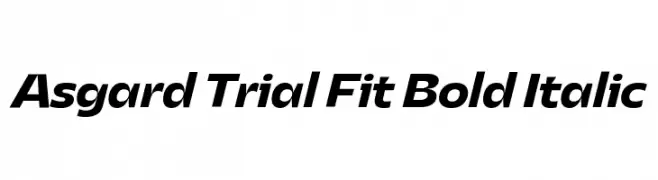
• Asgard Trial Fat
A bold, modern font with thick strokes and strong geometric shapes.
• Asgard Trial Fat Backslant
A bold, backslanted font with a dynamic and energetic style.
• Asgard Trial Fat Italic
A bold, italic font with a modern, dynamic style and high contrast.
• Asgard Trial Fit Bold
A bold, modern typeface with geometric shapes and a strong presence.
• Asgard Trial Fit Bold Backslant
A bold, backslanted font with a modern and dynamic style.
• Asgard Trial Fit Bold Italic
A bold, italic font with a modern and dynamic style.
• Asgard Trial Fit Fat
A bold, modern font with thick, uniform strokes and a slightly condensed appearance.
• Asgard Trial Fit Fat Backslant
A bold, backslanted font with a dynamic and impactful style.
• Asgard Trial Fit Fat Italic
A bold, italic font with a dynamic and modern style.
• Asgard Trial Fit Light
A sleek, modern font with clean lines and balanced spacing.